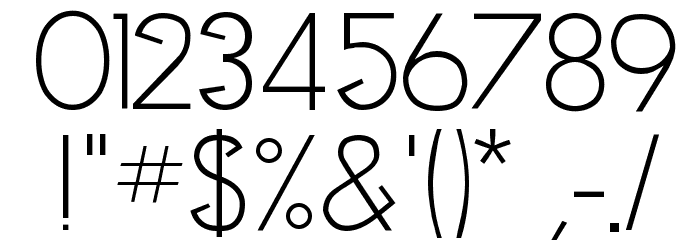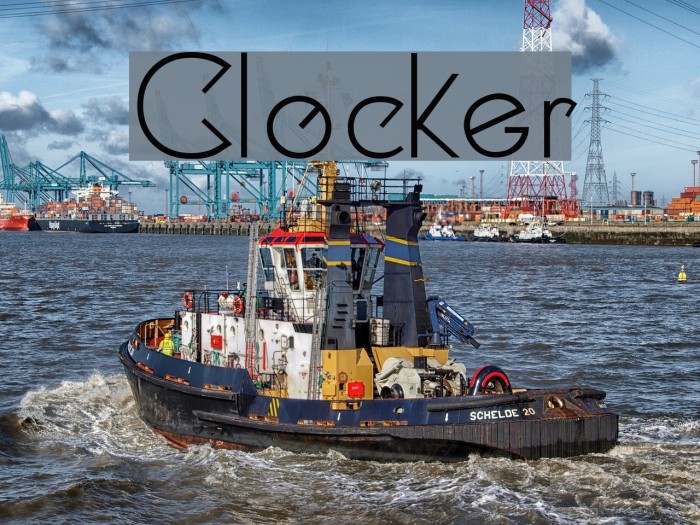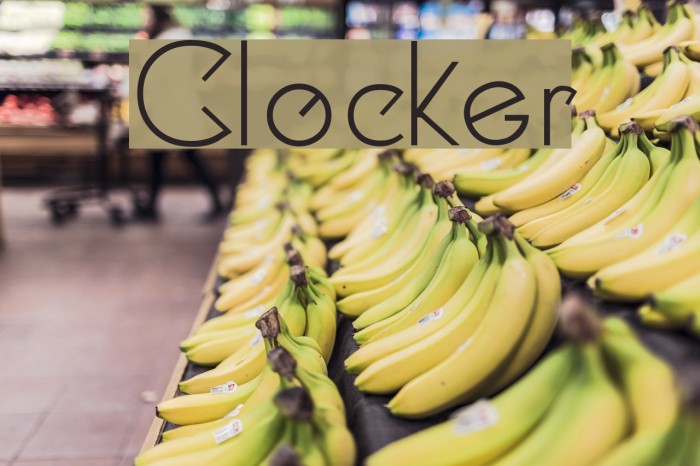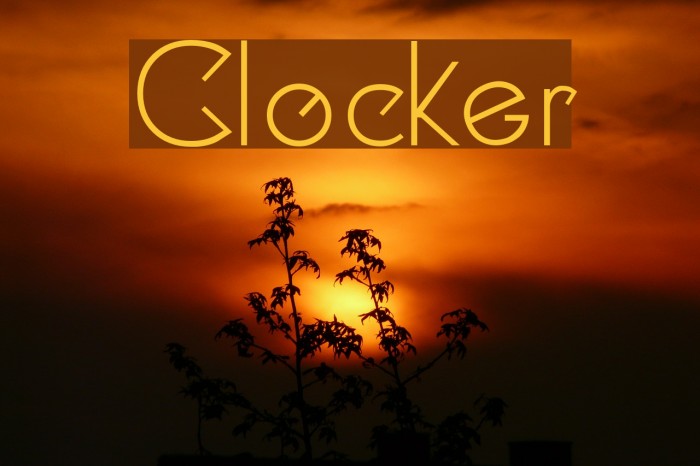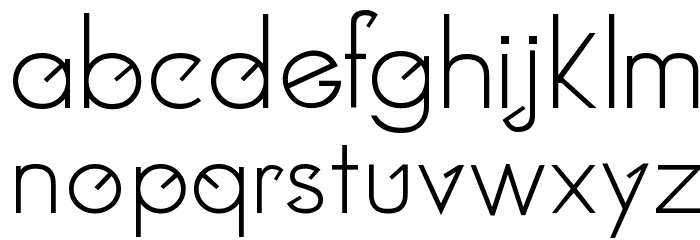
Clocker Font
Clocker Description
This font features a clean and modern sans-serif design with geometric influences. The characters are well-balanced with a consistent stroke width, giving it a sleek and contemporary appearance. The uppercase letters exhibit a uniform height, while the lowercase letters maintain a harmonious flow. The numerals are distinct and easy to read, complementing the overall style. Special characters are designed with the same attention to detail, ensuring versatility across various applications. The font's simplicity and clarity make it suitable for a wide range of design projects.
| Use Case | Headlines, Body text, Logos |
| Proposed Projects | Ideal for branding, editorial design, web design, and advertising materials. |